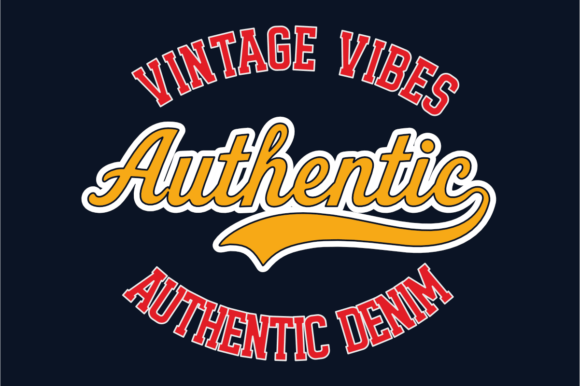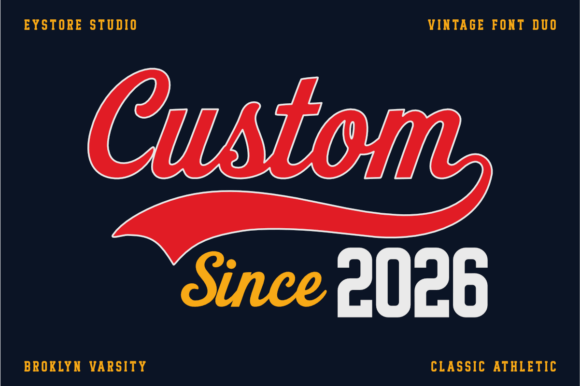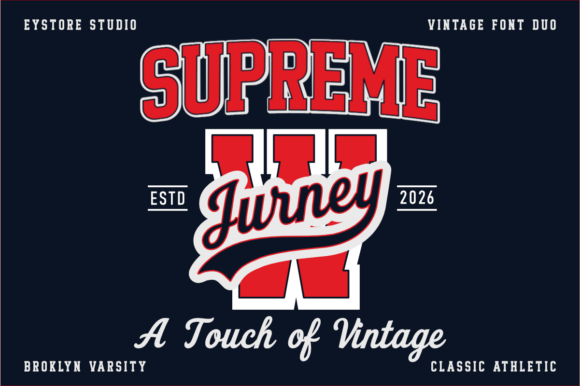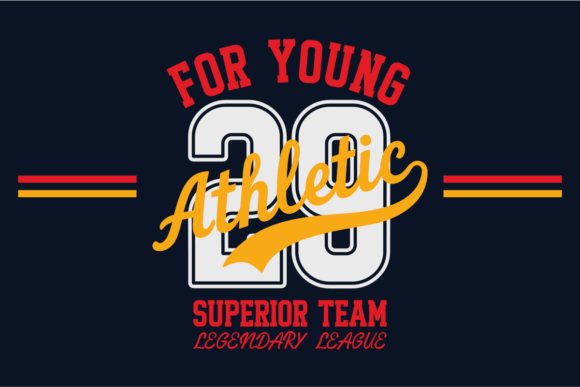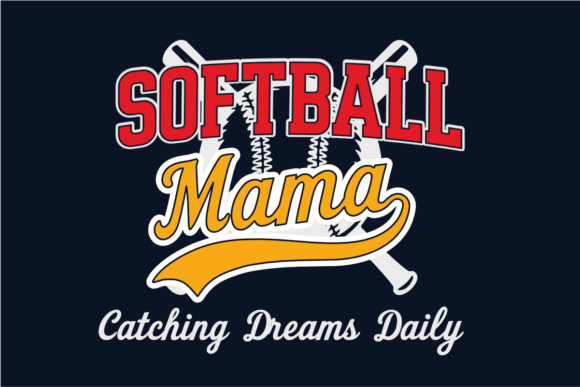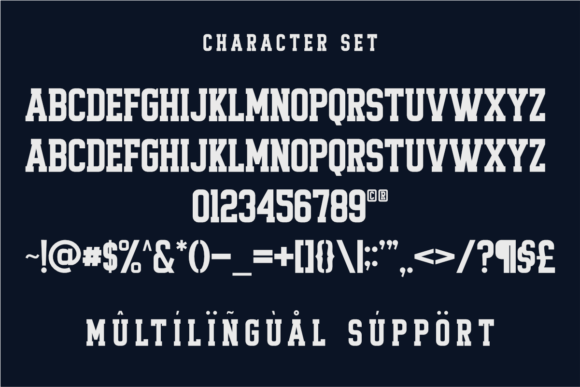
Hit a Design Home Run with Brooklyn Varsity Font
Are you looking for a font that can help you create iconic American athletic graphics? Look no further than Brooklyn Varsity, a classic and high-energy vintage font duo that’s perfect for designers and crafters. This nostalgic pairing brings together a heavy, western-style slab serif and a fluid, retro script layout, giving you the ultimate baseline toolkit to replicate vintage collegiate aesthetic instantly.
The Primary Display Font: Strong and Blocky
The primary display font in Brooklyn Varsity is a heavy, western-style slab serif that’s engineered with crisp slab serifs and a structured contour outline. This font delivers strong, blocky shapes that are perfect for creating bold and eye-catching graphics. The slab serif design gives the font a rugged and athletic feel, making it ideal for designing team sports jerseys, vintage campus apparel, and varsity-style logos.
The Accompanying Script Typography: Sweeping and Lively
When paired with the primary display font, the accompanying script typography in Brooklyn Varsity adds a sweeping tail, lively rhythm, and layered 3D depth to your designs. This fluid, retro script layout captures a perfect mid-century collegiate aesthetic that’s sure to evoke nostalgia in your audience. The script typography is perfect for adding a touch of elegance and sophistication to your designs, while still maintaining a sporty and energetic feel.
Brooklyn Varsity is an exceptional choice for designers and crafters who want to create authentic and iconic American athletic graphics. Whether you’re designing team sports jerseys, vintage campus apparel, varsity-style logos, streetwear branding, or nostalgic retro poster layouts, this font duo has got you covered. The versatility of Brooklyn Varsity makes it perfect for a wide range of design projects, from sports and fitness to fashion and lifestyle.
Key Features of Brooklyn Varsity Font
- Classic and high-energy vintage font duo: Brooklyn Varsity brings together a heavy, western-style slab serif and a fluid, retro script layout for a unique and nostalgic look.
- Strong and blocky primary display font: The primary display font features crisp slab serifs and a structured contour outline for a bold and eye-catching look.
- Sweeping and lively script typography: The accompanying script typography adds a touch of elegance and sophistication to your designs, while still maintaining a sporty and energetic feel.
- Perfect for designing team sports jerseys and vintage campus apparel: Brooklyn Varsity is ideal for creating authentic and iconic American athletic graphics.
- Versatile and easy to use: Brooklyn Varsity can be used for a wide range of design projects, from sports and fitness to fashion and lifestyle.
Tips and Inspiration for Using Brooklyn Varsity Font
Here are some tips and inspiration for using Brooklyn Varsity font in your designs:
- Pair Brooklyn Varsity with bold colors and graphics: Use Brooklyn Varsity with bold colors and graphics to create eye-catching and authentic American athletic graphics.
- Experiment with different design styles: Try pairing Brooklyn Varsity with different design styles, such as vintage illustrations or modern graphics, to create unique and interesting designs.
- Use Brooklyn Varsity for branding and advertising: Use Brooklyn Varsity to create iconic and memorable branding and advertising campaigns for sports and fitness brands.
| Font Name | Broklyn Varsity Font |
| Author | Eystore |
Brooklyn Varsity font is a classic and high-energy vintage font duo that’s perfect for designers and crafters who want to create iconic American athletic graphics. With its strong and blocky primary display font and sweeping and lively script typography, Brooklyn Varsity is ideal for designing team sports jerseys, vintage campus apparel, varsity-style logos, streetwear branding, and nostalgic retro poster layouts. Whether you’re a designer or crafter, Brooklyn Varsity is a versatile and easy-to-use font duo that’s sure to help you hit a design home run.